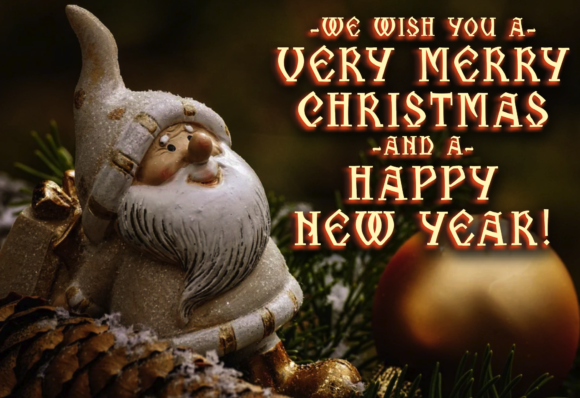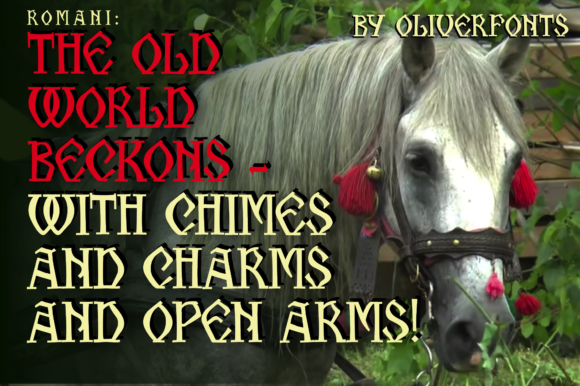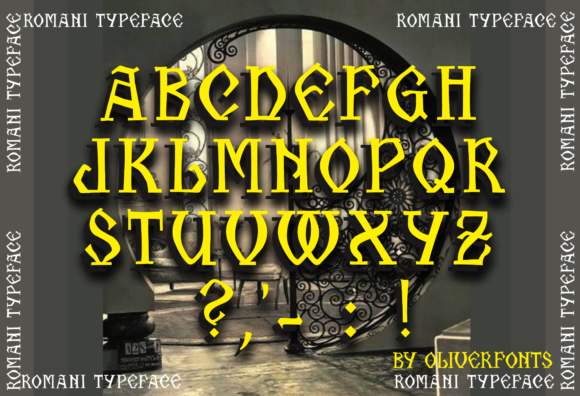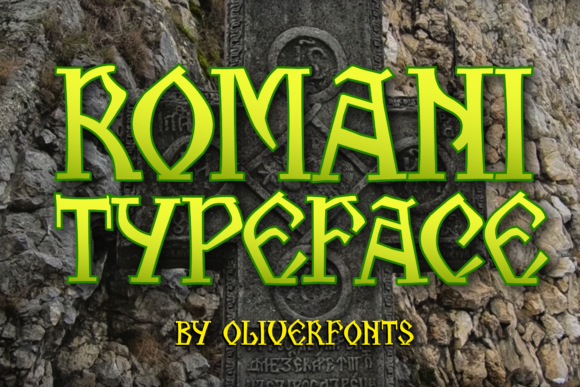
Introduction to Romani Font
Romani is a beautiful display font with a character appealing enough for the modern day creative designer and for those looking for a more nostalgic design.
It is perfect for Christmas cards and other vintage graphic applications .
Key Features of Romani Font
Why Choose Romani Font?